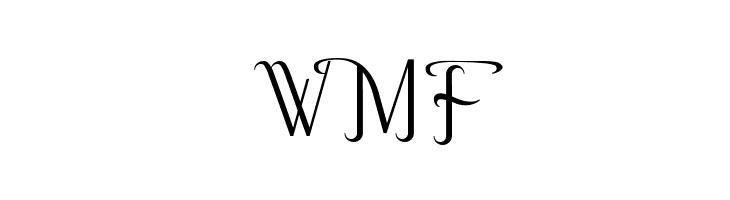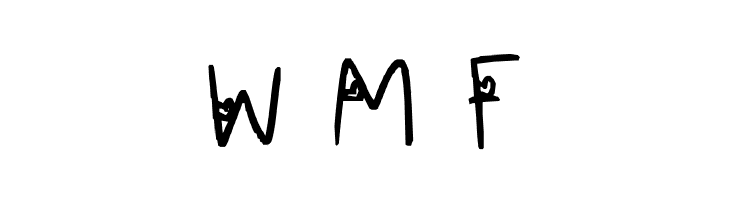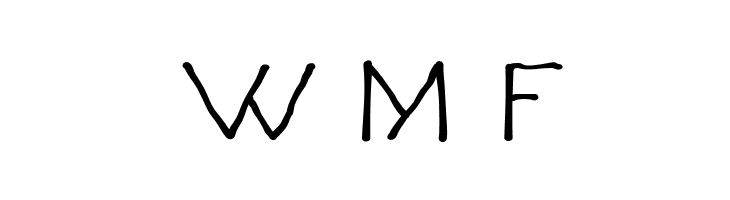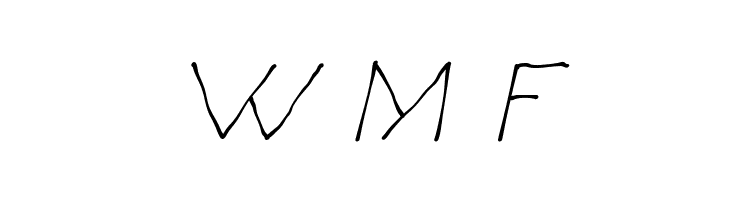
A bold, decorative font with intertwined uppercase letters and elegant curves.
A bold, elegant script font with flowing curves and dynamic strokes.
An elegant, vertically emphasized font with a classic calligraphic style.
A playful, handwritten font with bold, rounded strokes and a whimsical touch.
A playful and expressive font featuring emoticons and words that convey various emotions.
A playful, hand-drawn font with bold, rounded characters.
A playful, handwritten italic font with a casual, personal touch.